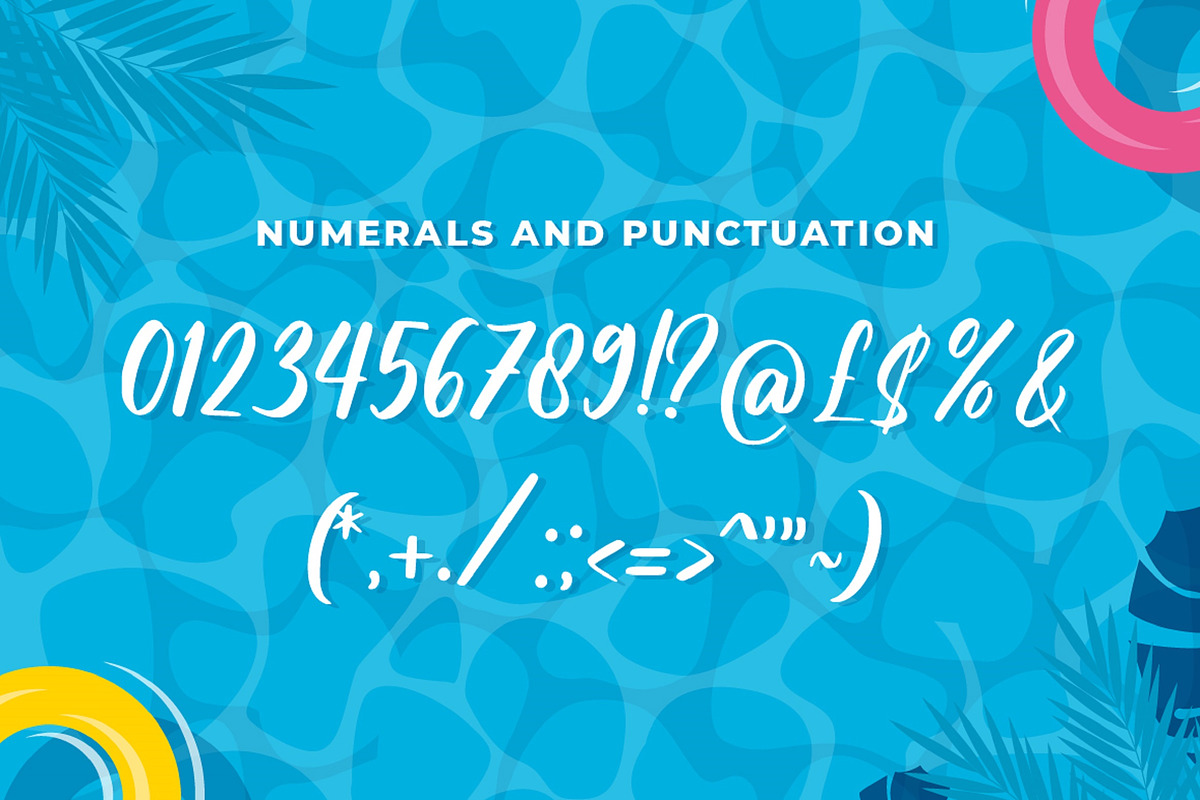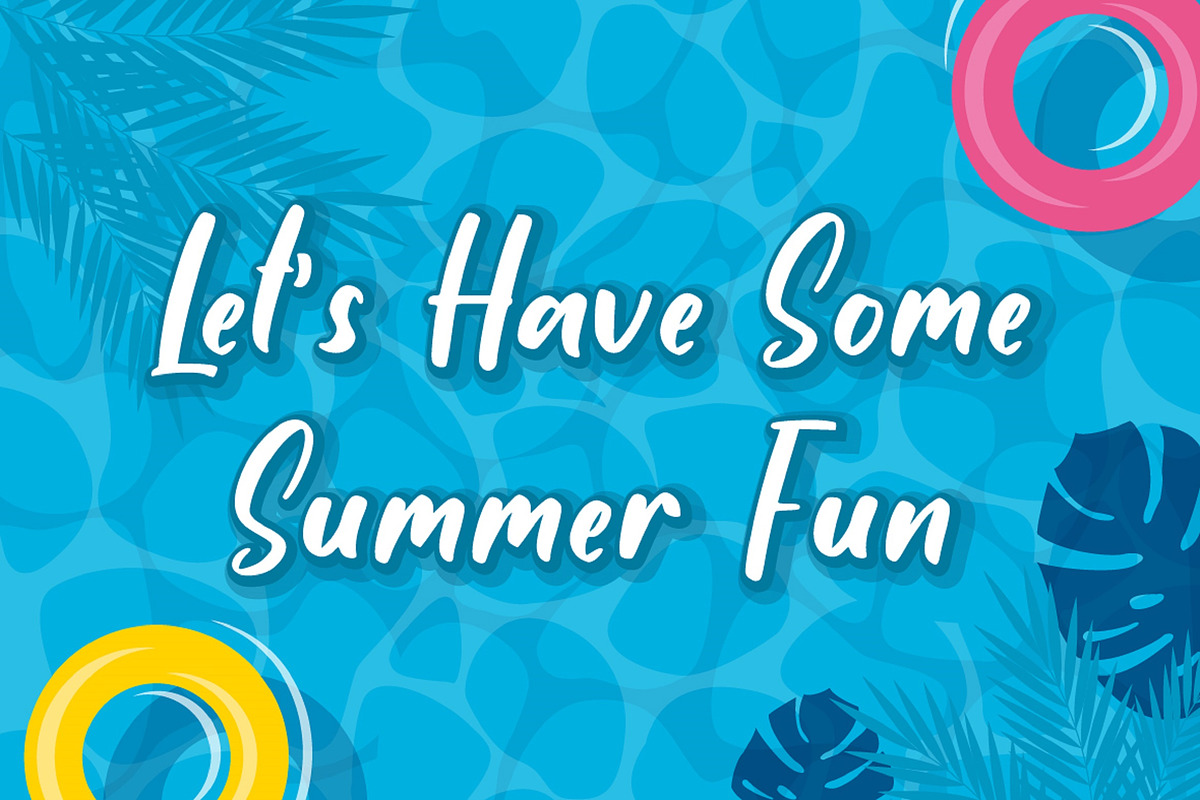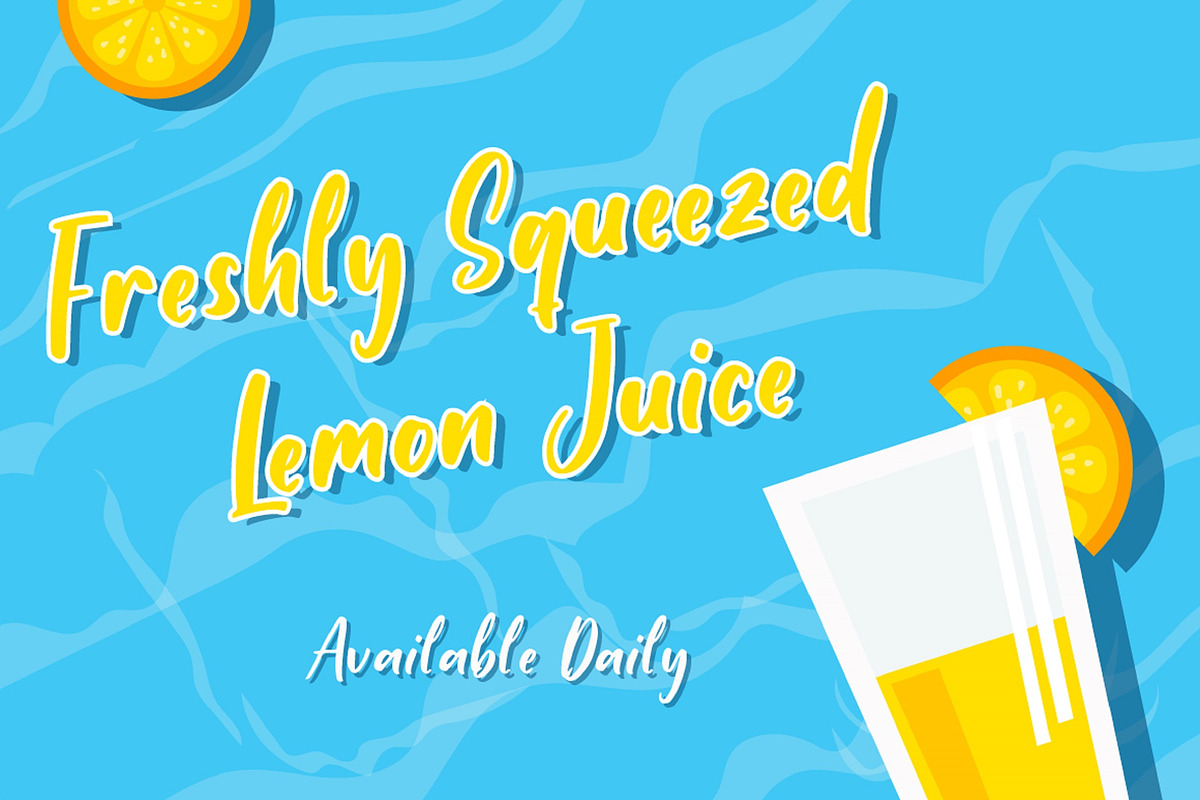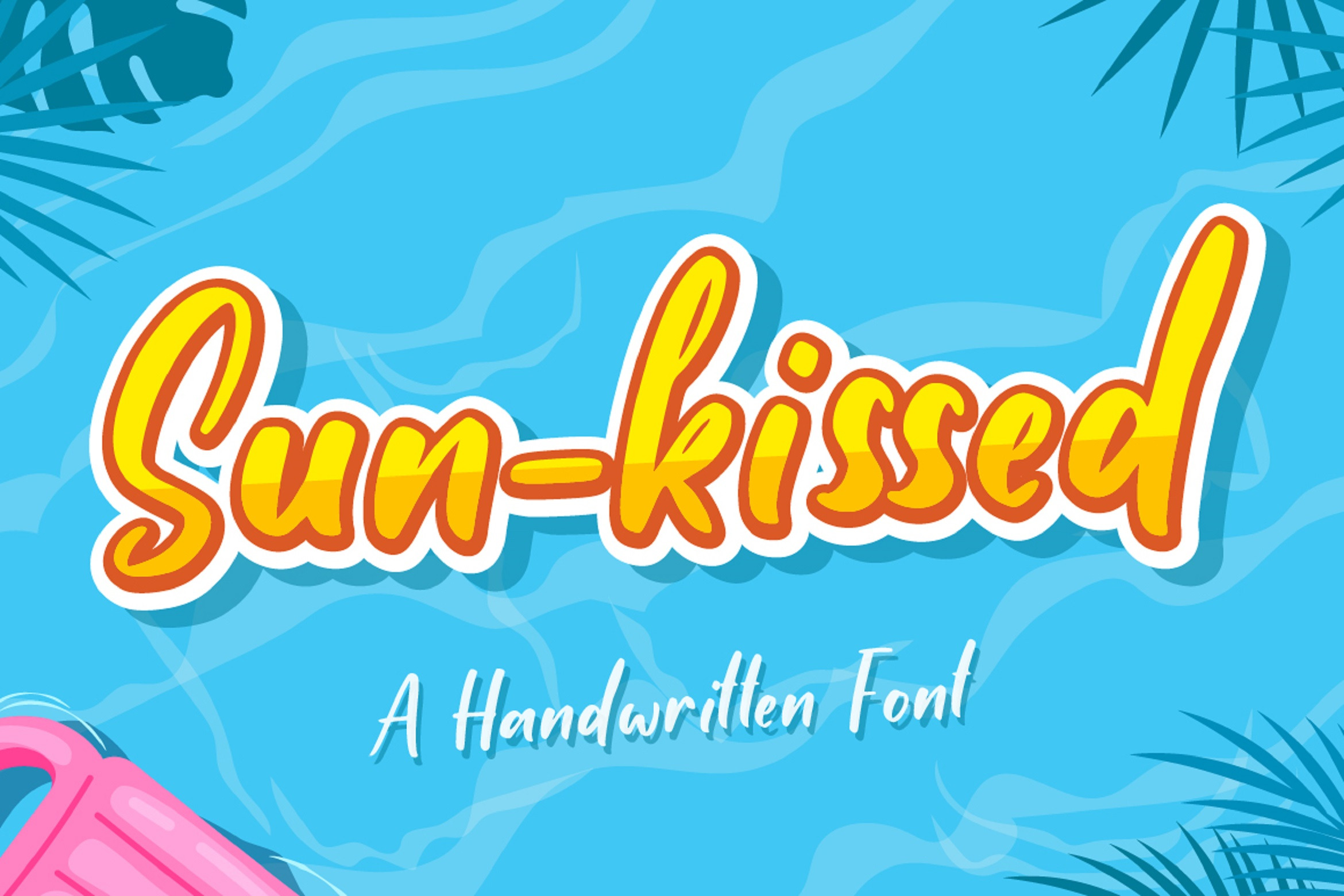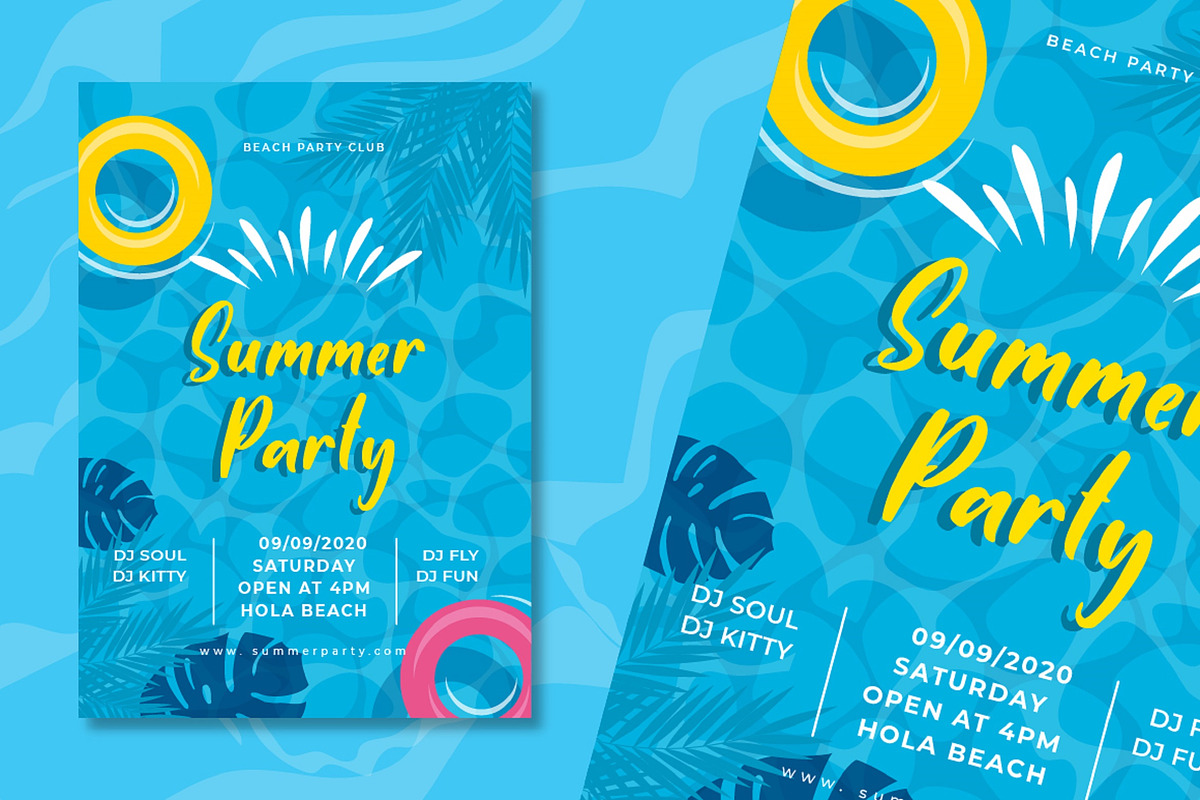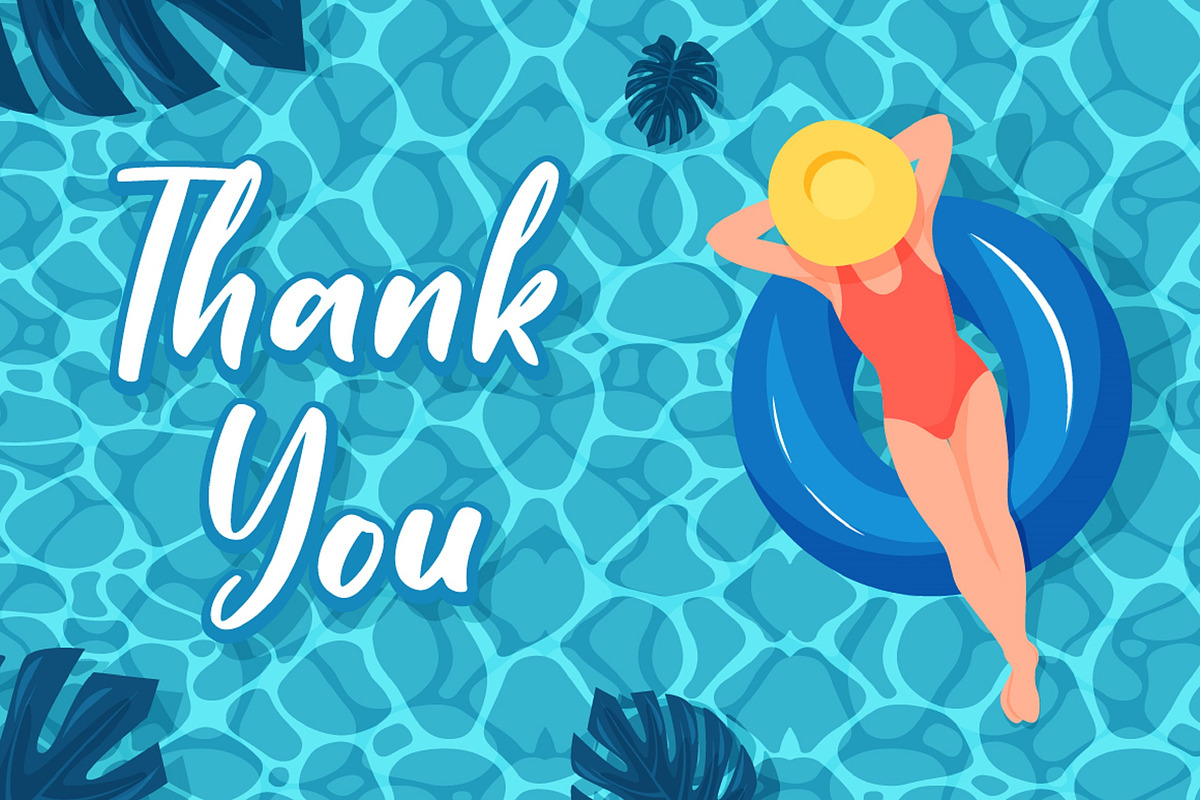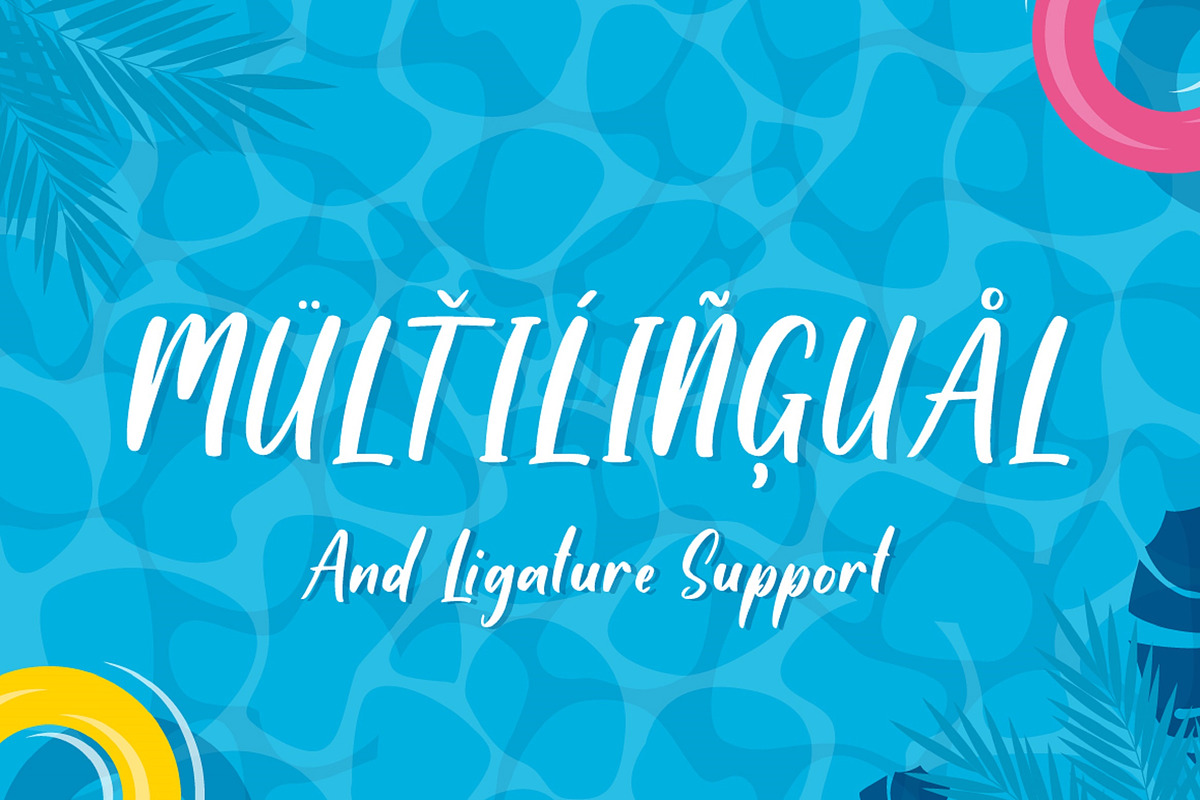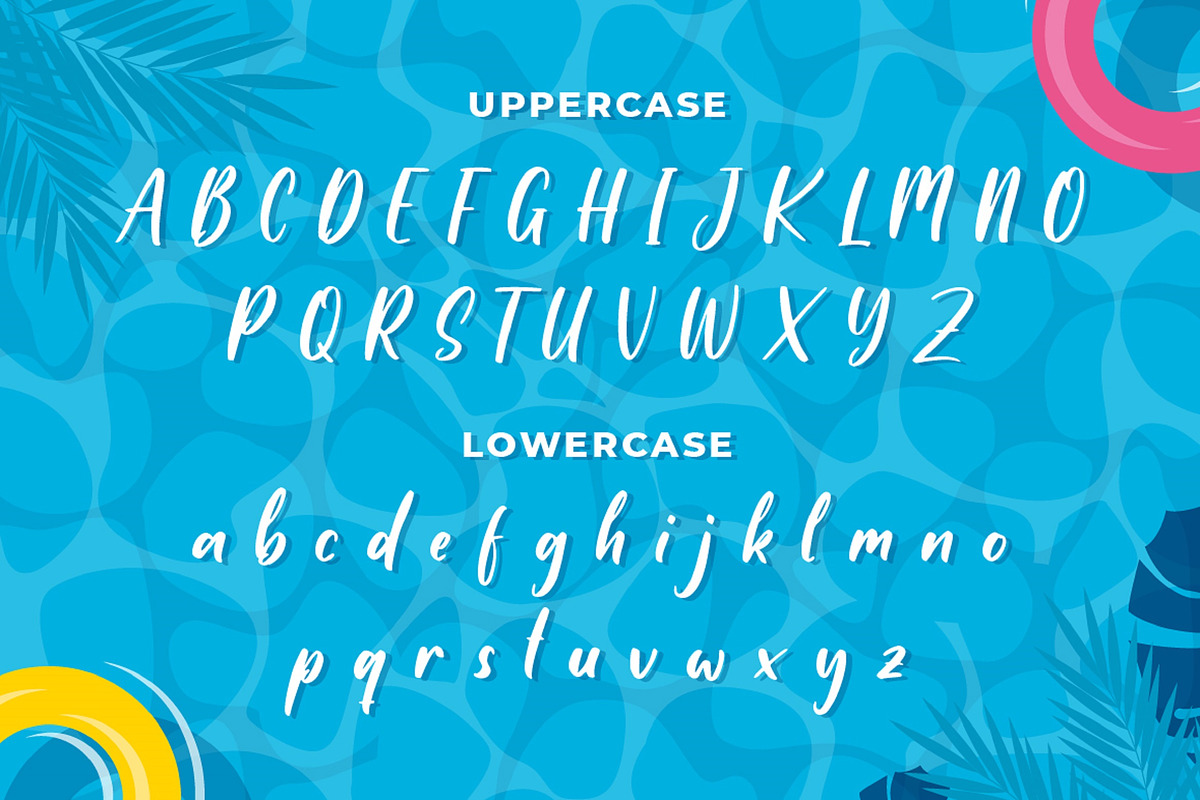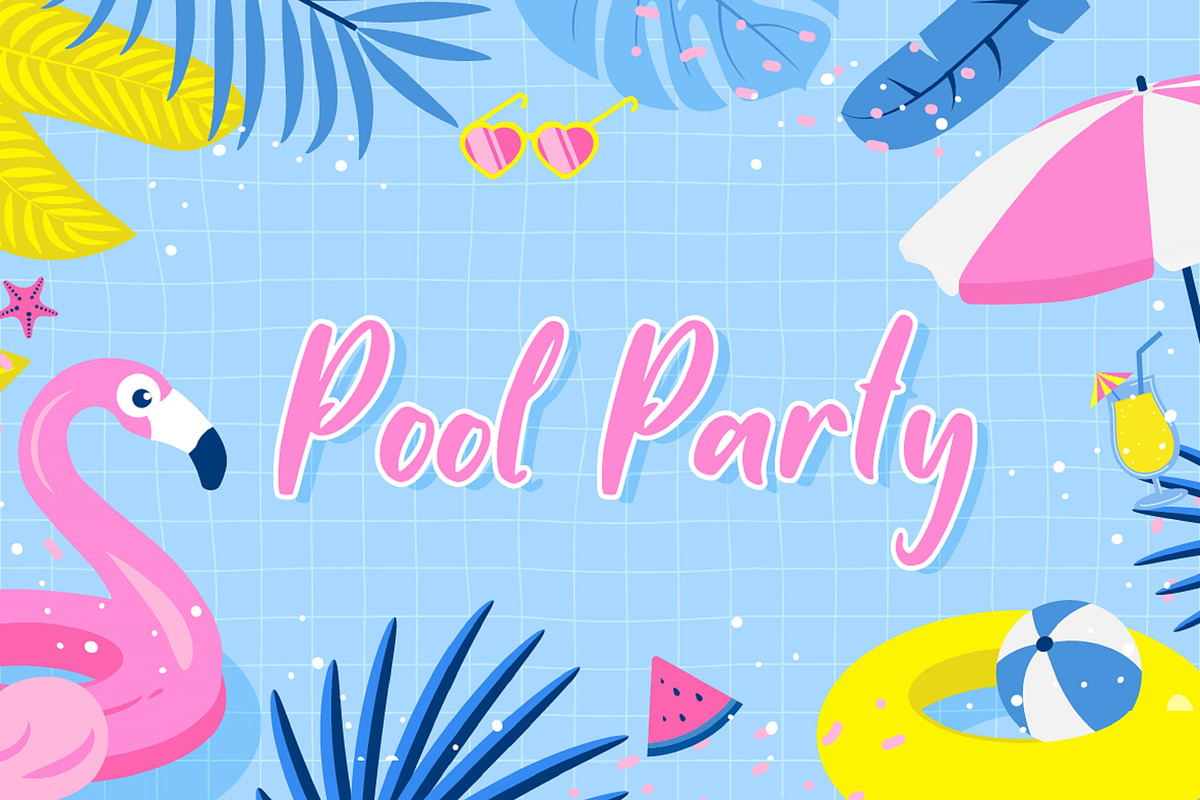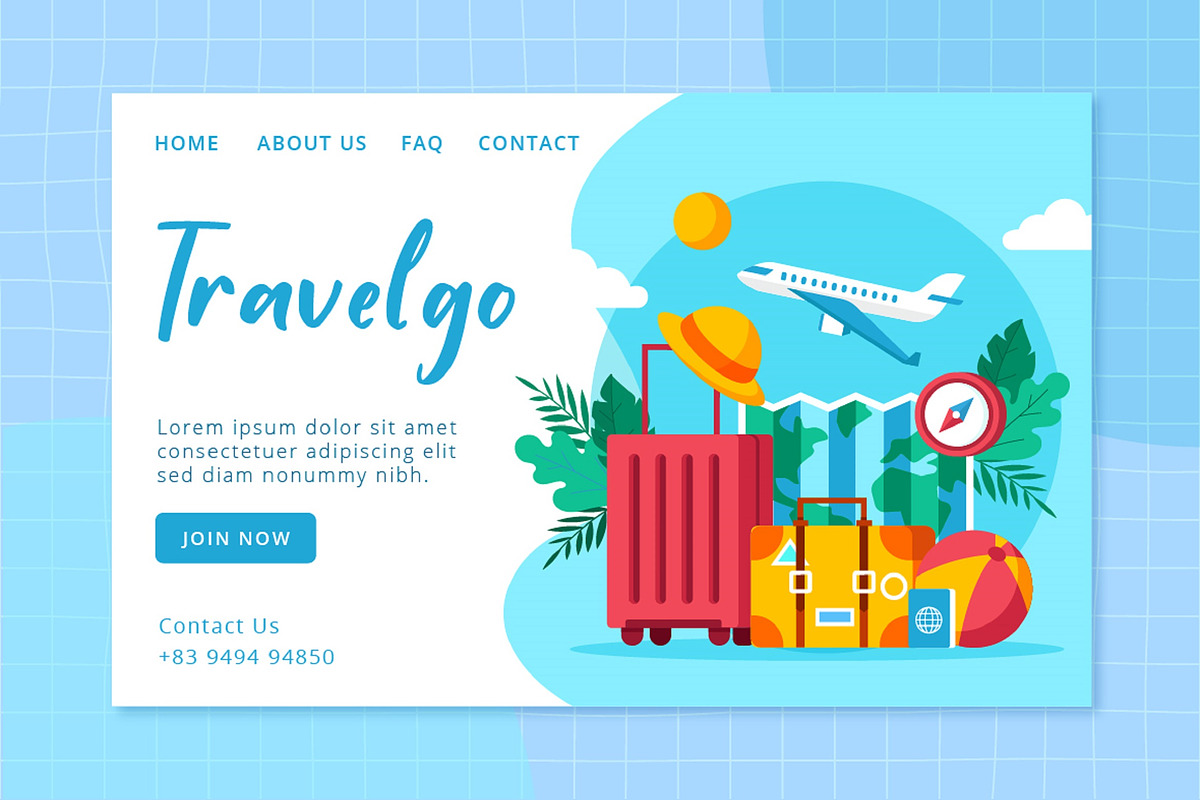
Handwritten Font
“Live in the sunshine. Swim in the sea. Drink the wild air.”
― Ralph Waldo Emerson
Hey there sun-kissed beauties!
Are you looking for a gorgeous handwritten font that’ll captivate your viewers and make your branding shine as bright as the sun?
Introducing Sun-kissed - A Handwritten Font.
With every hand-drawn stroke and curve, Sun-kissed will delight and add brightness, modernity, and fun to wherever it’s placed. Impress your party guests with gorgeous invitations, make a statement on your social media banners, and add a little bit of sunshine to your corporate identity.
This stylish Handwritten font is also can be used for headings, logos, business cards, printed quotes, cards, packaging, and presentations.
- Multilingual & Ligature Support
- Full sets of Punctuation and Numerals